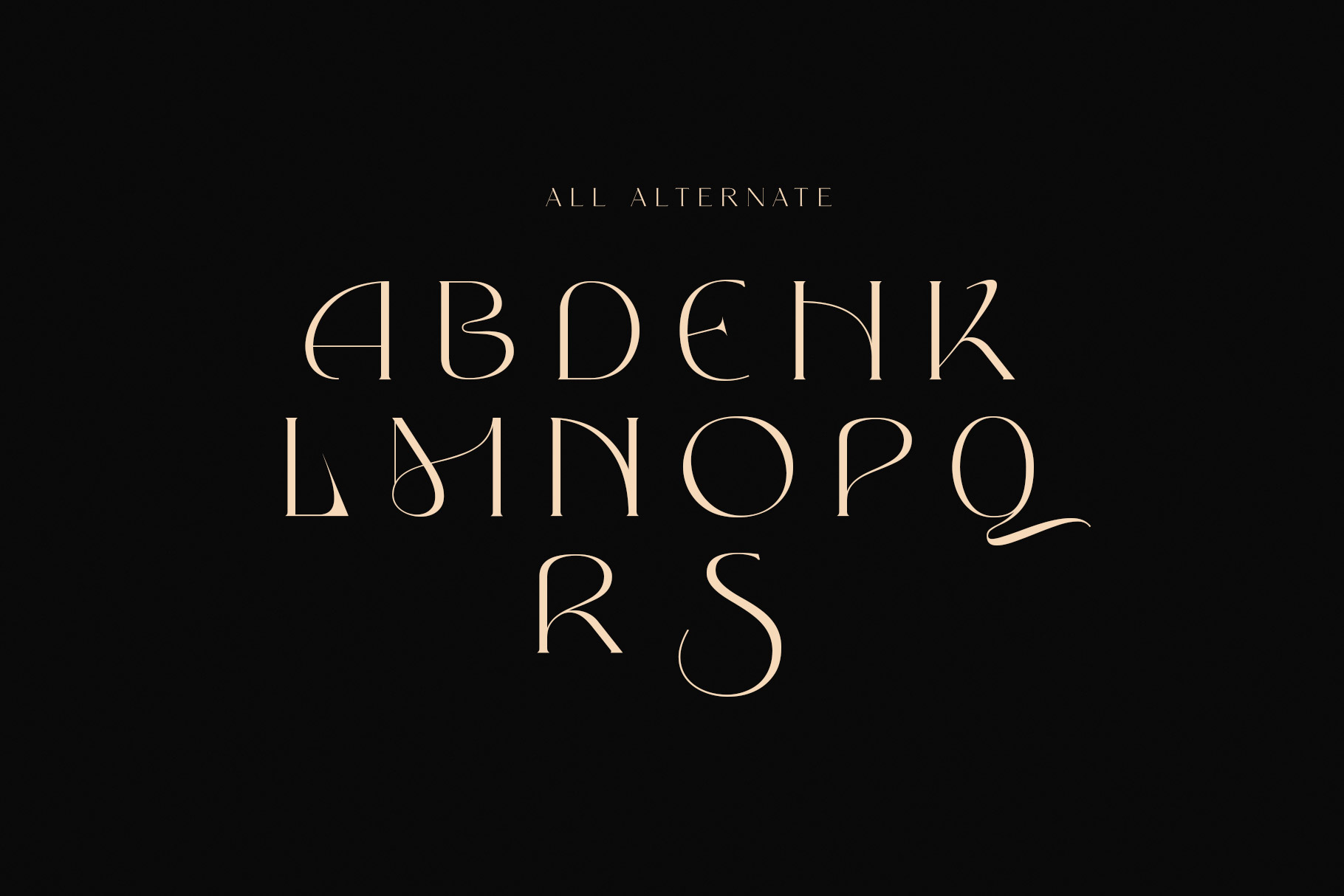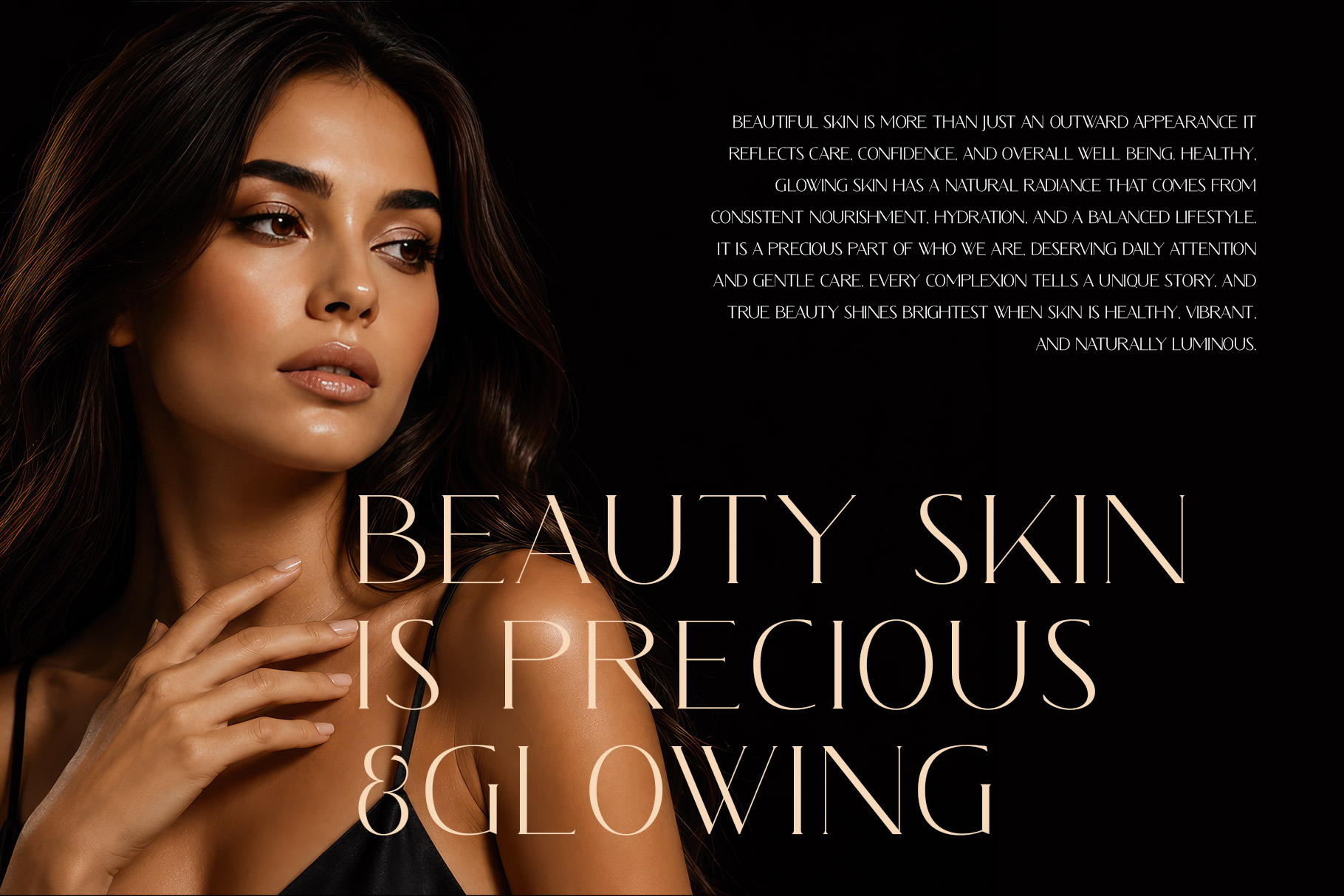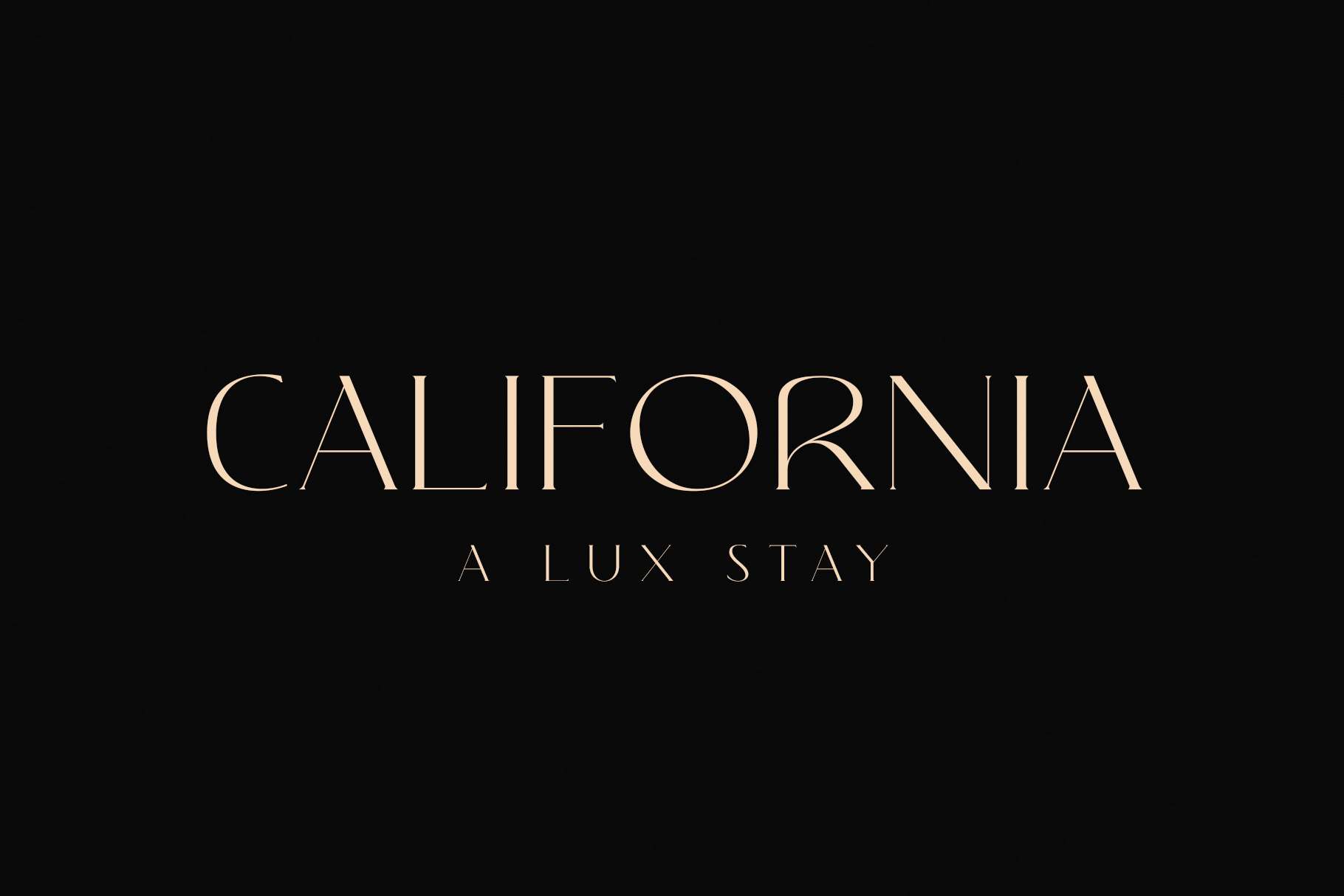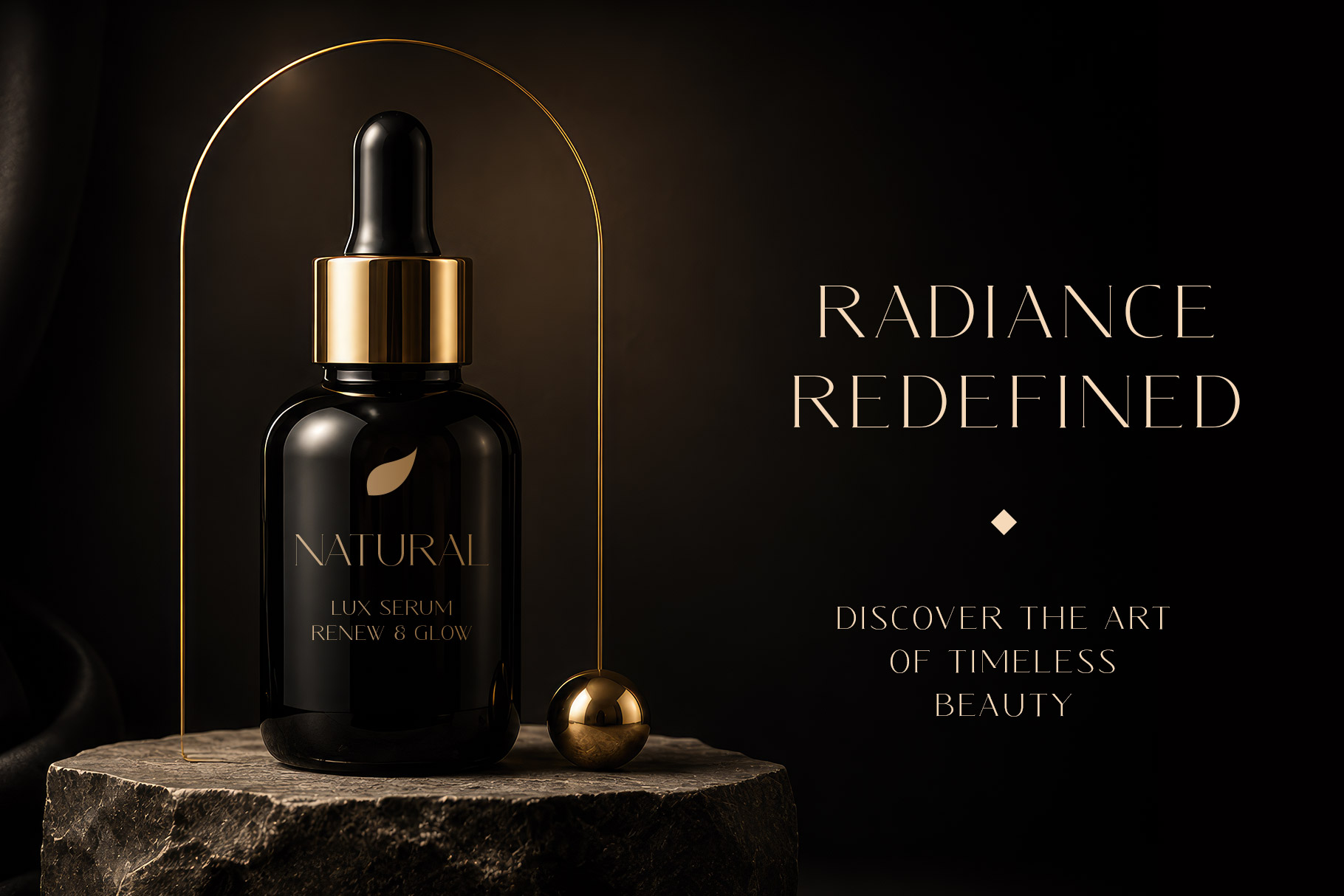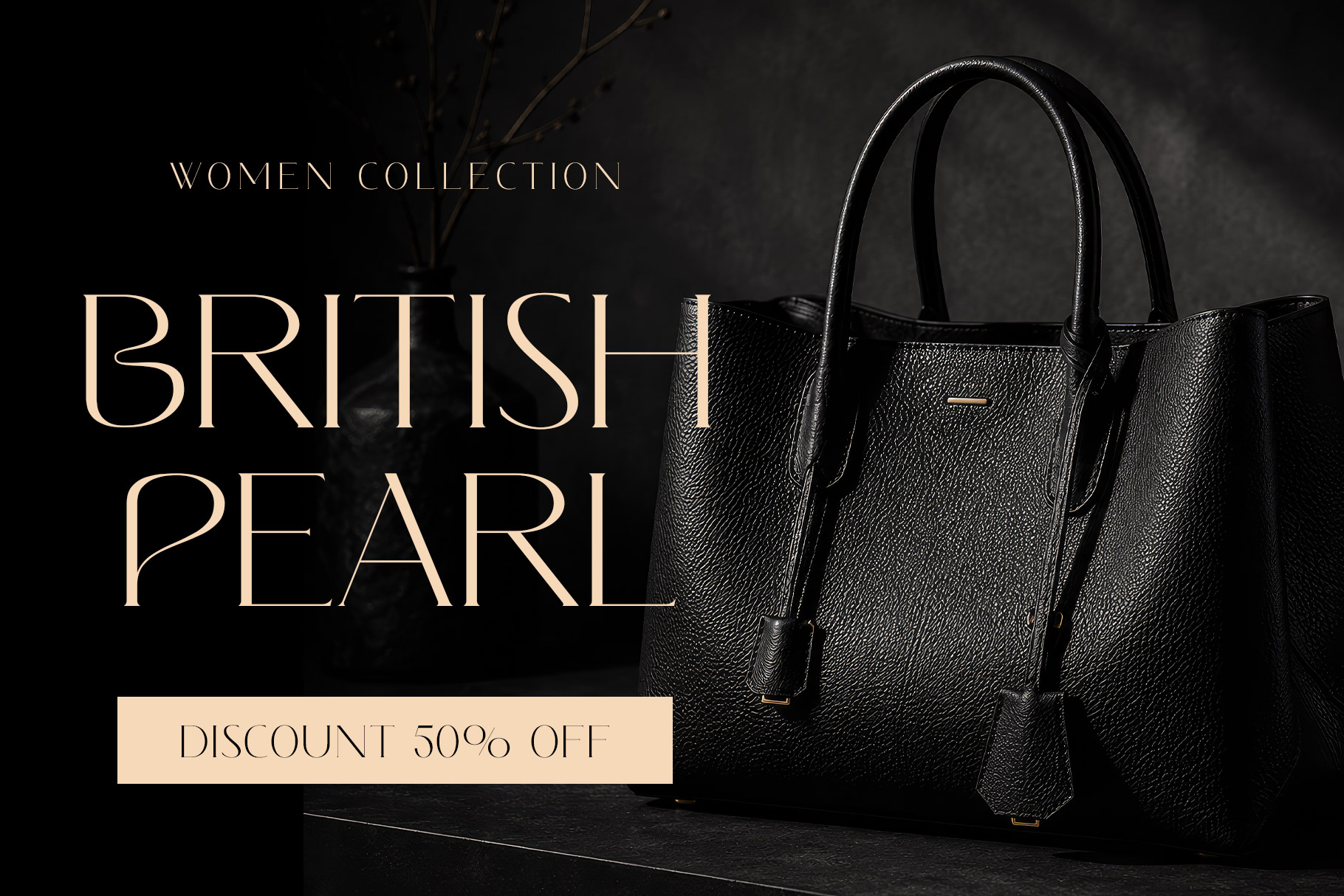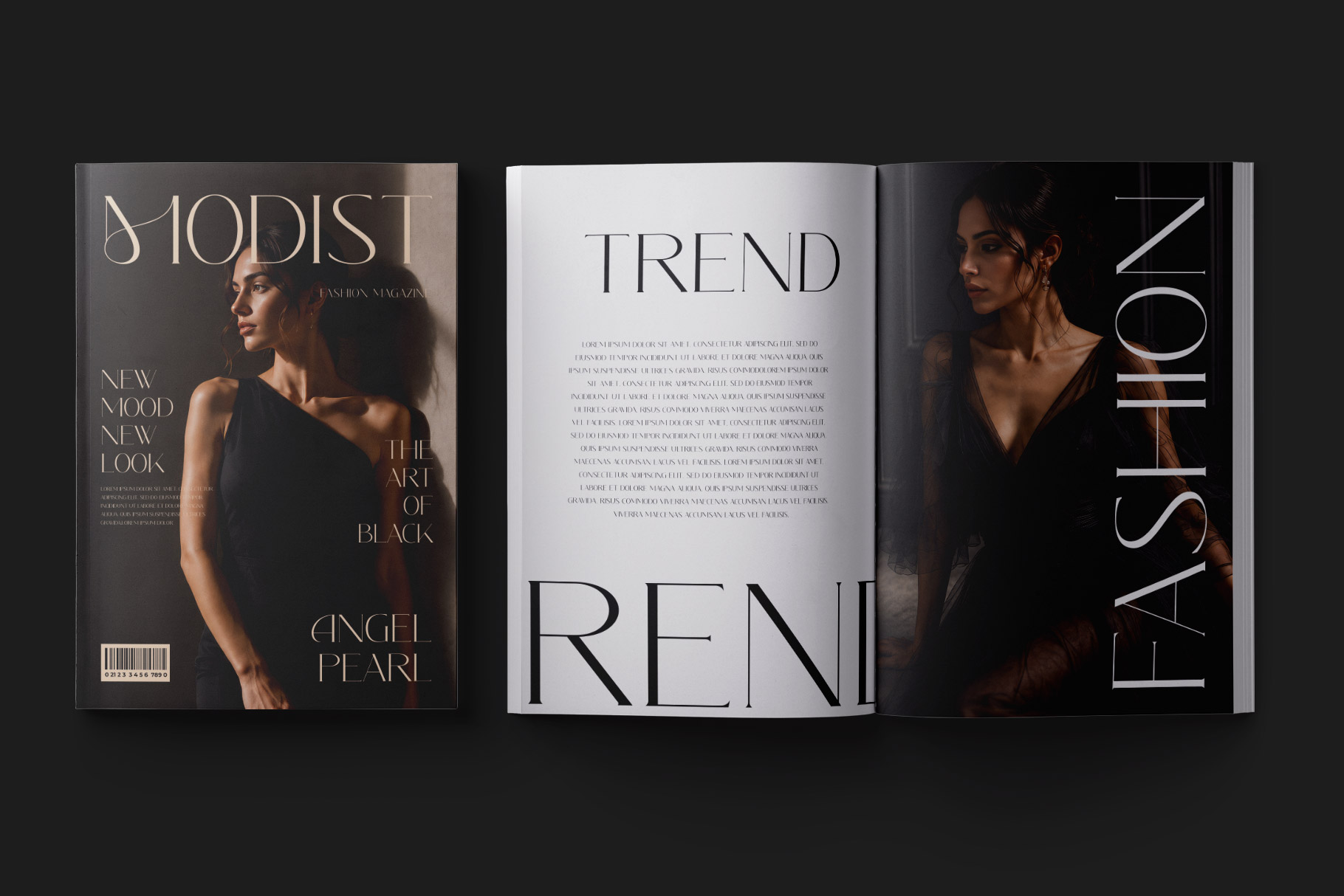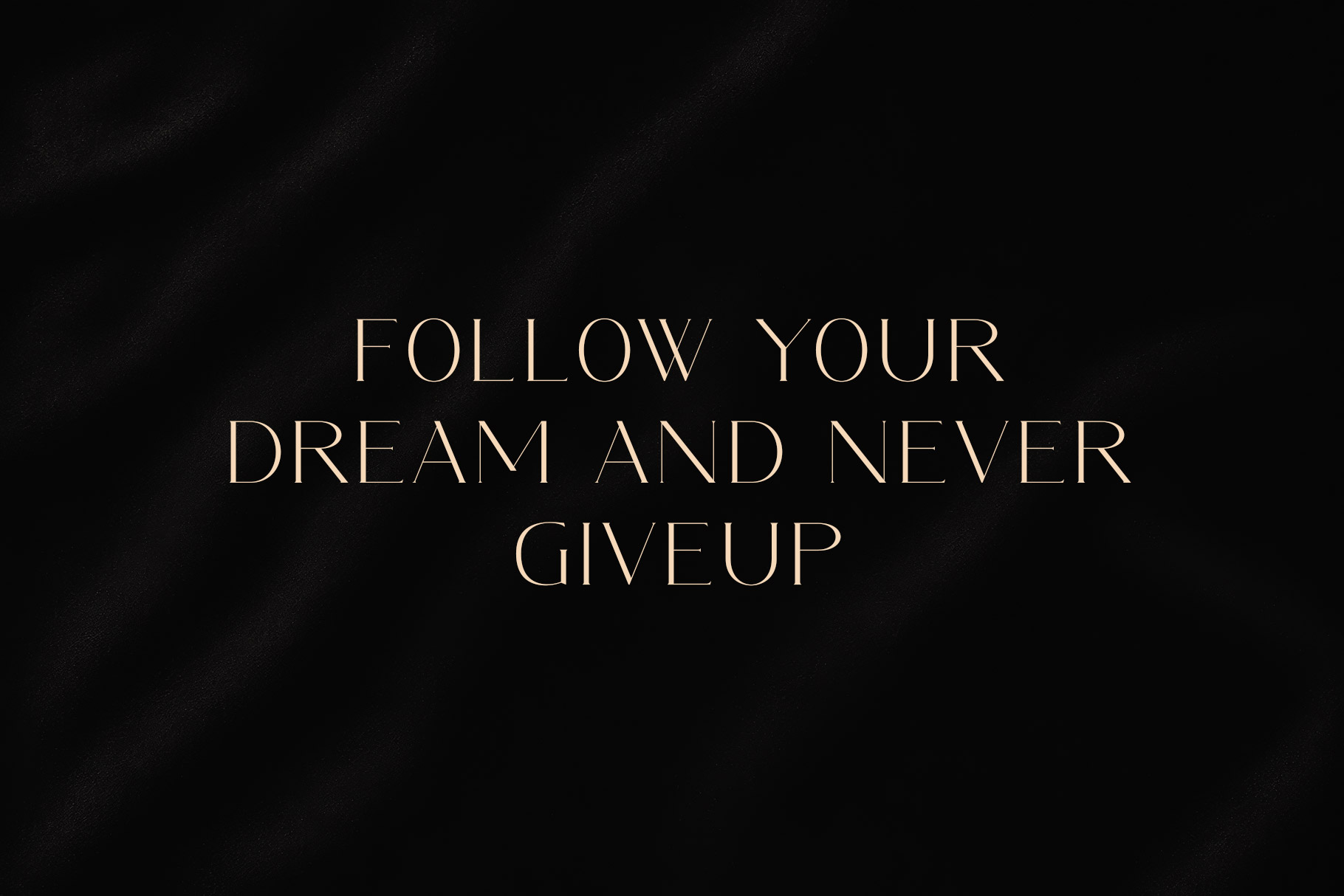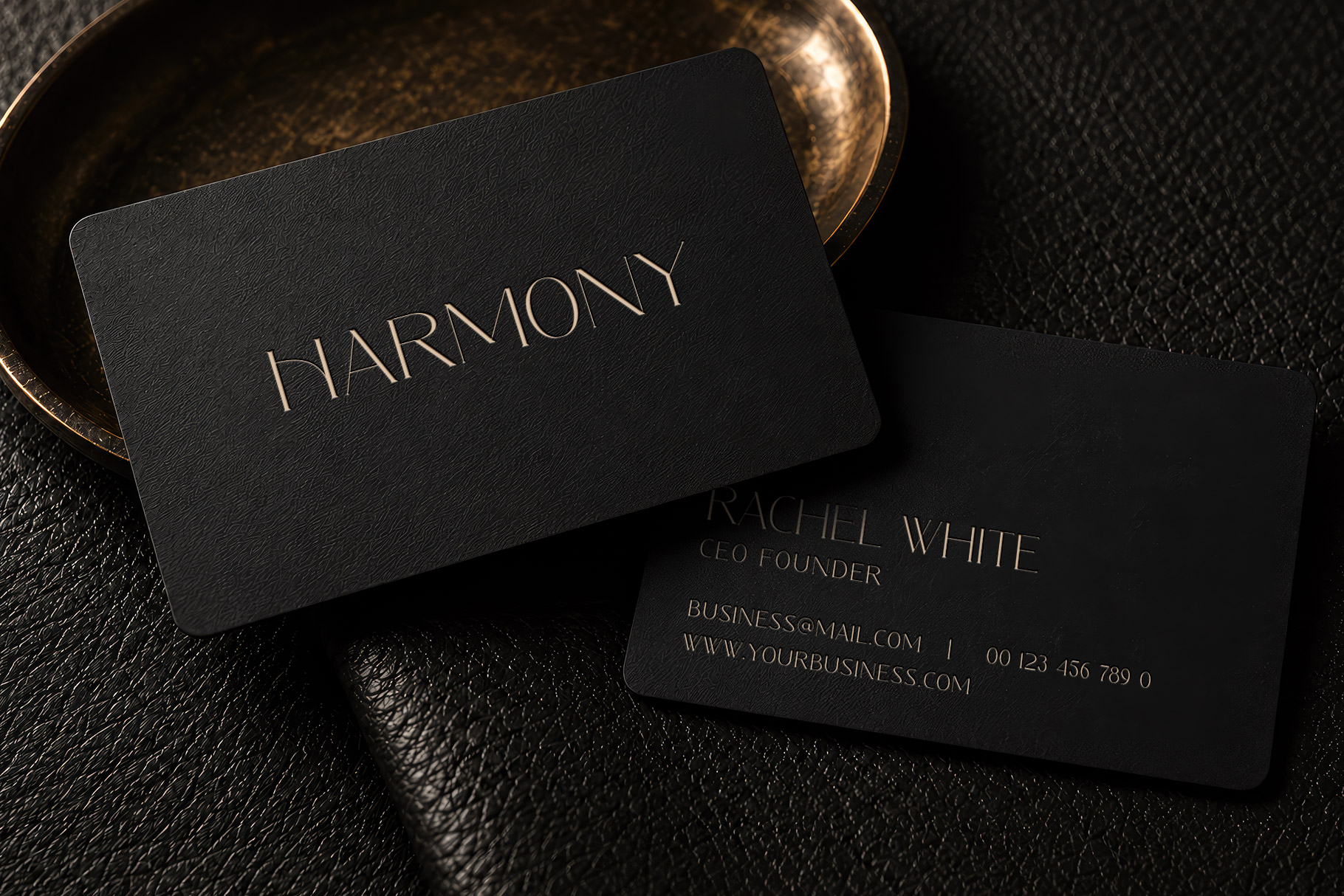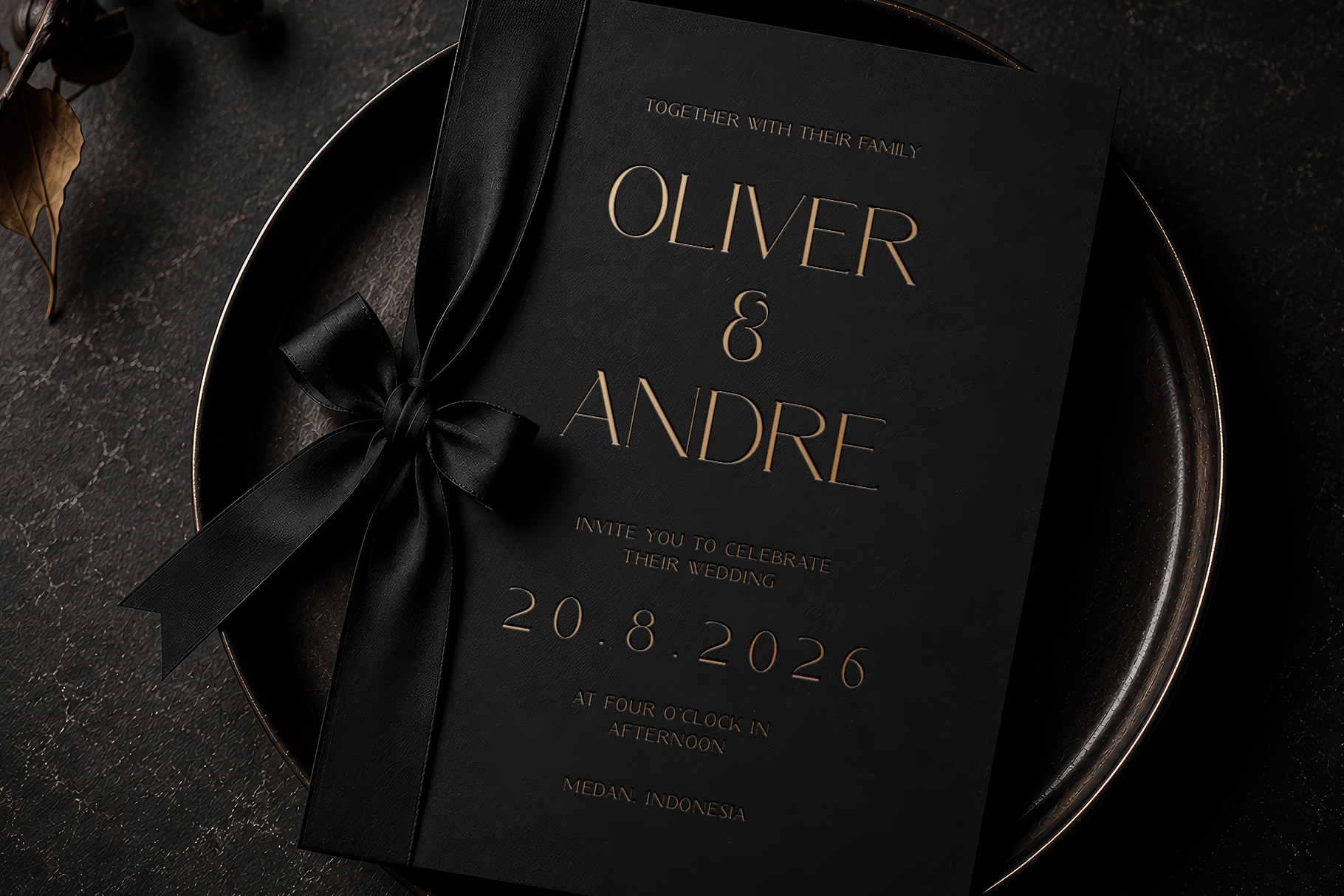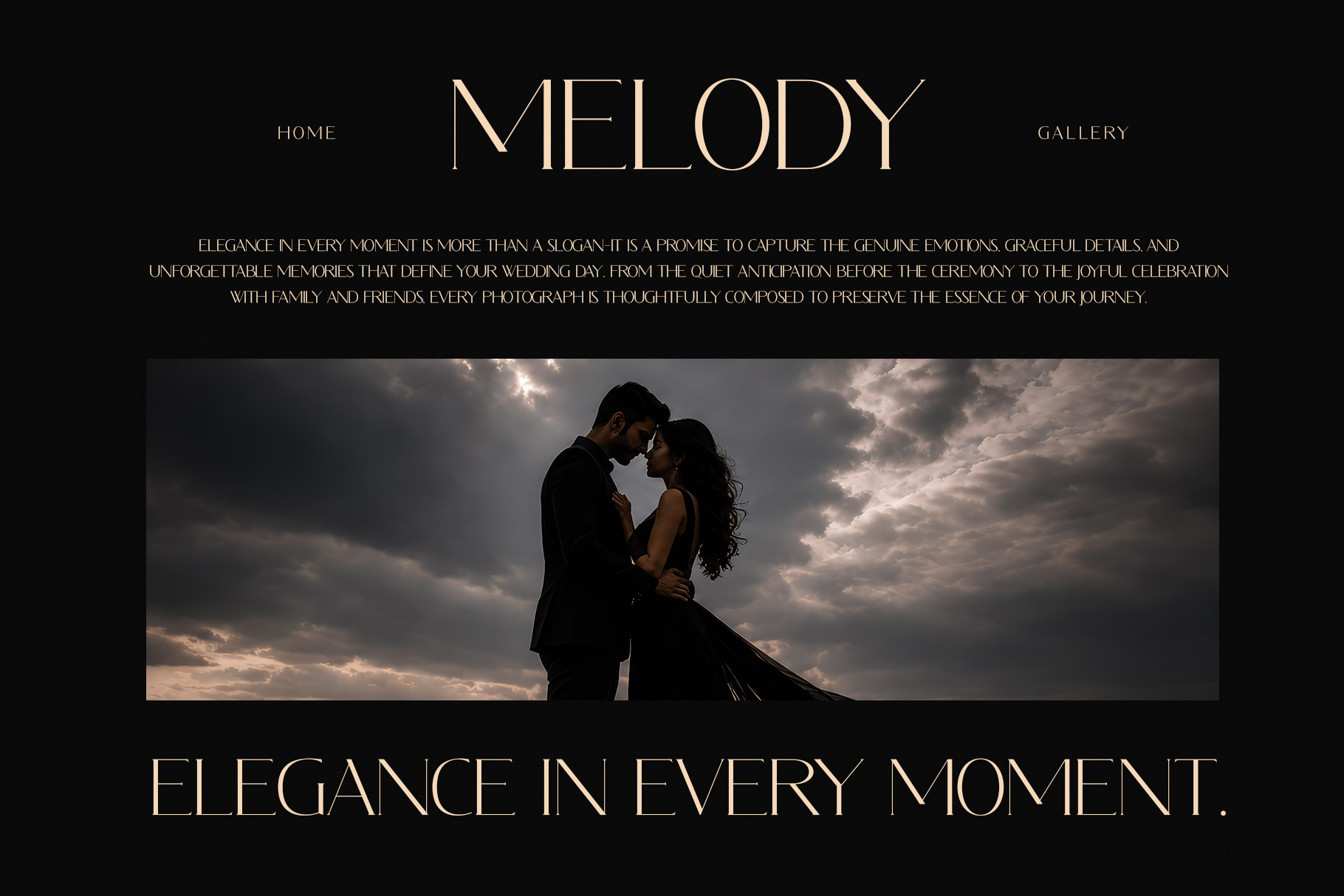
Leniva is font embodies the essence of modern elegance through its refined, high-contrast serif design and graceful proportions. Leniva come with minimalist character allows the beauty of each letterform to stand on its own, making every word appear polished, luxurious, and effortlessly stylish. Leniva a perfectly choice for any creative endeavor, creating, modern, lifestyle design such as logotype, title, cover, branding, invitations, wedding designs, display and magazine, social media posts, advertisements, printed quotes, product packaging, corporate brand, product designs, labels, photography, watermarks, special events and any other project with elegant touch.
Leniva Elegant Serif Font